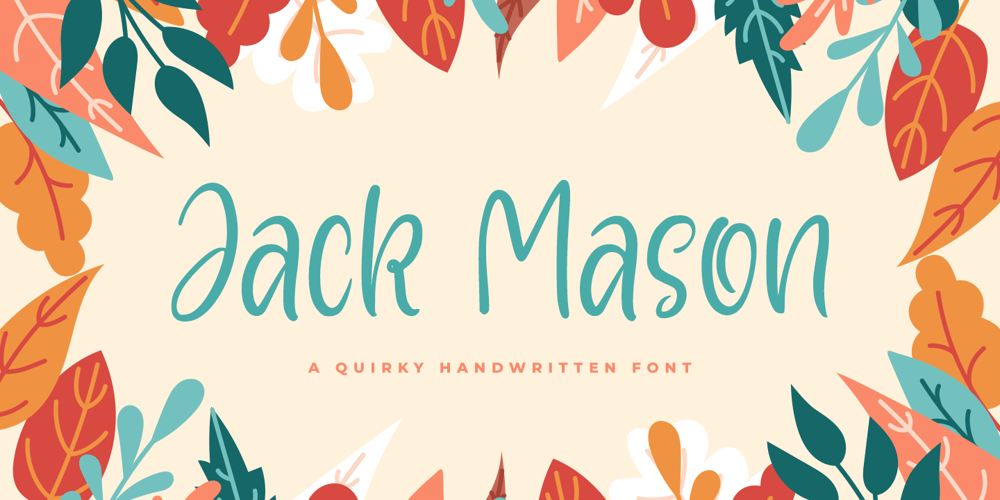
Jack Mason Font Family was designed by Hayinah and published by Rockboys Studio. Jack Mason contains 1 styles and family package options. Jack Mason is a delicate, elegant and flowing handwritten font. It has beautiful and well balanced characters and as a result, it matches a wide pool of designs. Add it to your most creative ideas and notice how it makes them come alive!